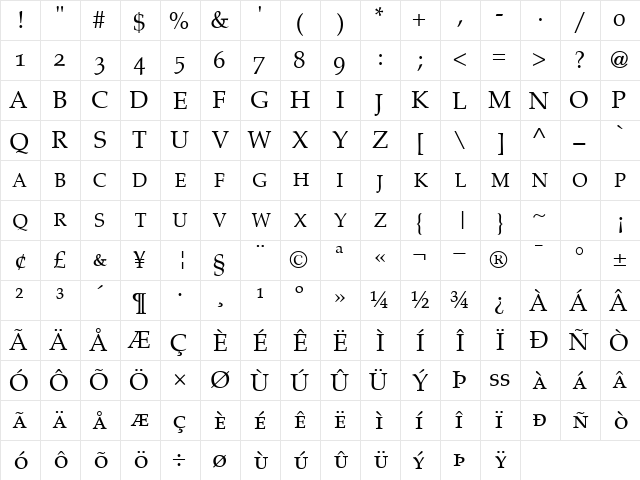
CriteriaOSSCapsSSK Regular Font Preview
CriteriaOSSCapsSSK Regular
Design Context for CriteriaOSSCapsSSK Typeface
CriteriaOSSCapsSSK is a composed and adaptable typeface that performs quietly and consistently across a wide range of design contexts.